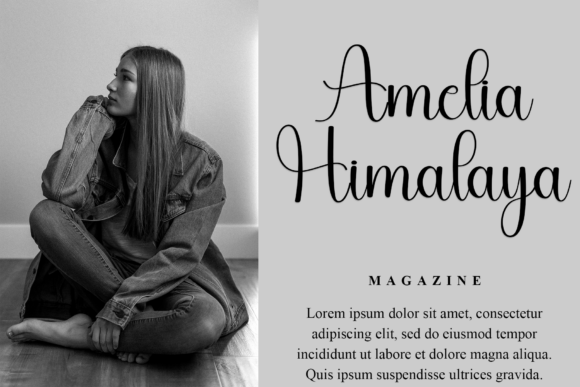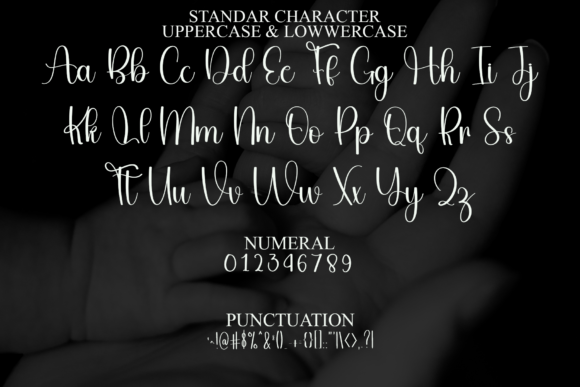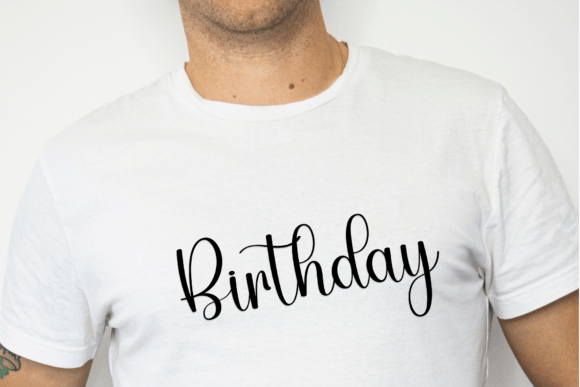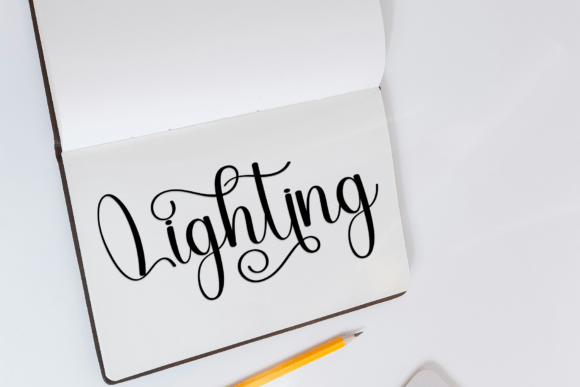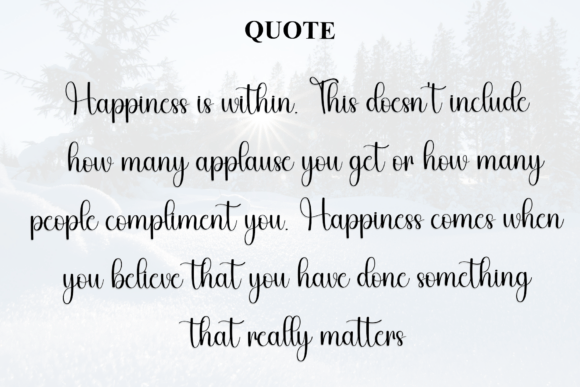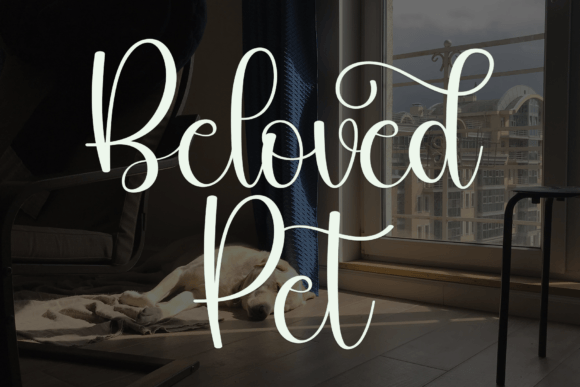
Introduction to Labradors Font
Labradors Font is a playful, curly handwritten font that features flowing, soft letterforms.
Its casual and friendly style gives it a warm, approachable look, perfect for personal or fun designs .